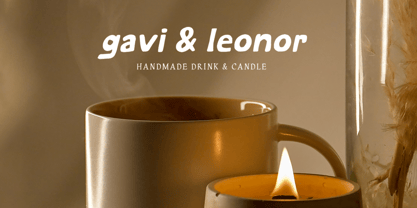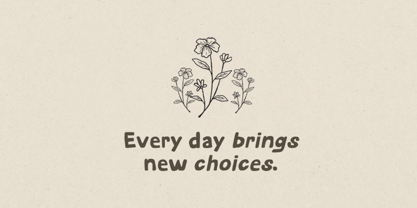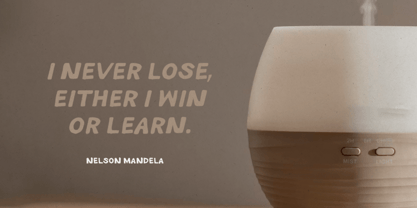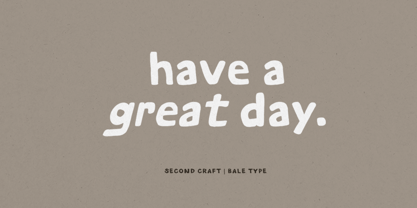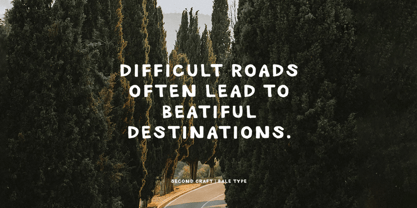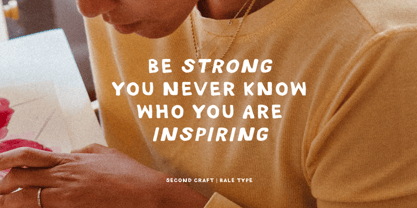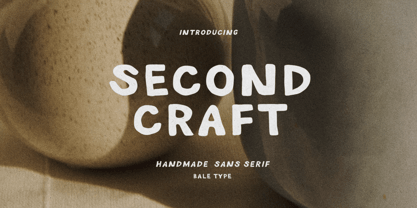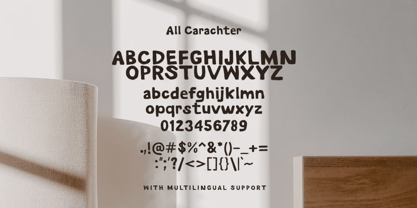
Second Craft
por Bale Type
La familia tipográfica Second Craft fue diseñada por Sarid Ezra y publicada por Bale Type. Second Craft contiene 2 estilos y opciones de paquete familiar. Más información sobre esta familia
Second Craft is a handmade bold sans serif font created with a natural, hand-drawn character. Its organic and imperfect details give designs a warm, expressive feel while still remaining clean and readable. This font is ideal for branding projects, logotypes, packaging, and creative layouts, and it also works beautifully for quotes and short statements. Second Craft supports multiple languages, making it a versatile choice for both personal and professional design needs.
Diseñadores: Sarid Ezra
Fundición: Bale Type